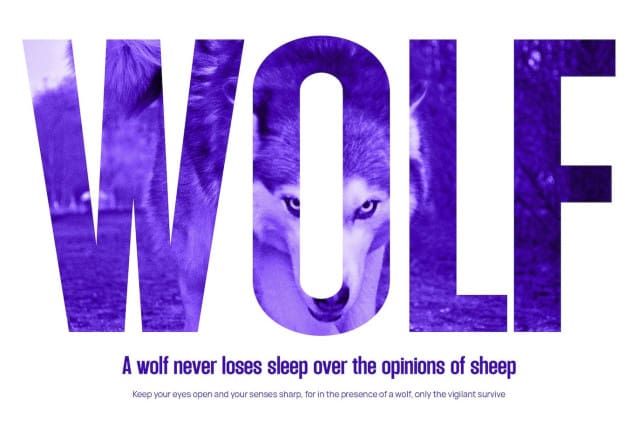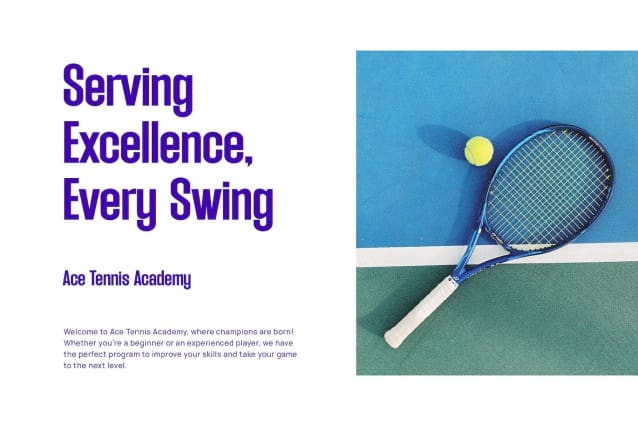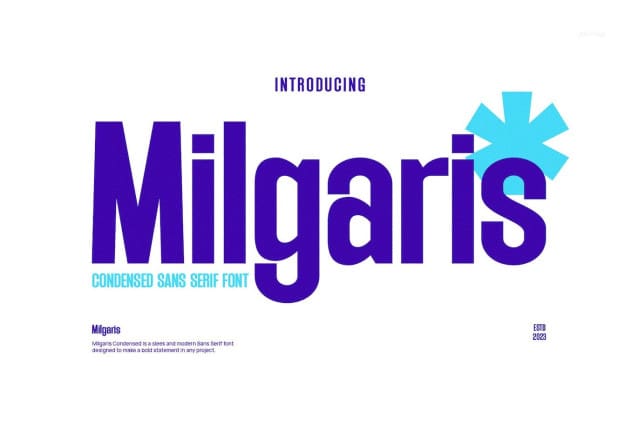
Milgaris Font
Milgaris Font, a modern sans serif font with an elegant style, perfect for brands, logos, invitations, magazines, product packaging, and more.